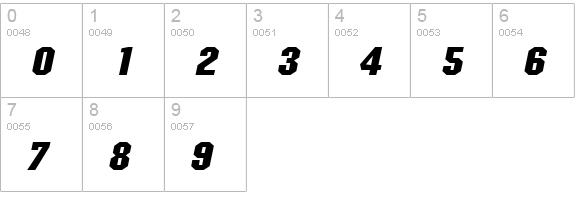
Block-Extended Bold Italic Font Details
Block-Extended Bold Italic is a strong, high-contrast, extended-width, italic variant in the Block typeface family \xE2\x80\x94 well suited to headlines, attention-grabbing titles, and strong calls-to-action.
The Block-Extended Bold Italic font is a striking and bold typeface that commands attention with its unique design. Its strong and modern appearance makes it ideal for creating eye-catching headlines, logos, and other design projects. The combination of blocky shapes and italic styling gives this font a dynamic and contemporary feel, perfect for adding a touch of flair to your designs. What sets the Block-Extended Bold Italic font apart is not only its boldness but also its versatility. Whether you're looking to make a statement or convey a sense of strength and confidence, this font has you covered. Its extended width and bold strokes make it perfect for creating impactful designs that demand attention. And the best part? The Block-Extended Bold Italic font is available for free download at FontsMarket.com. So go ahead and add this powerful and stylish font to your collection today and take your designs to the next level!